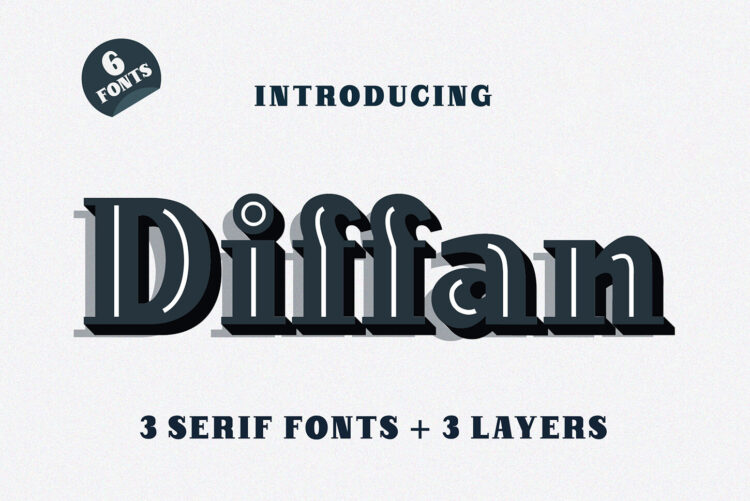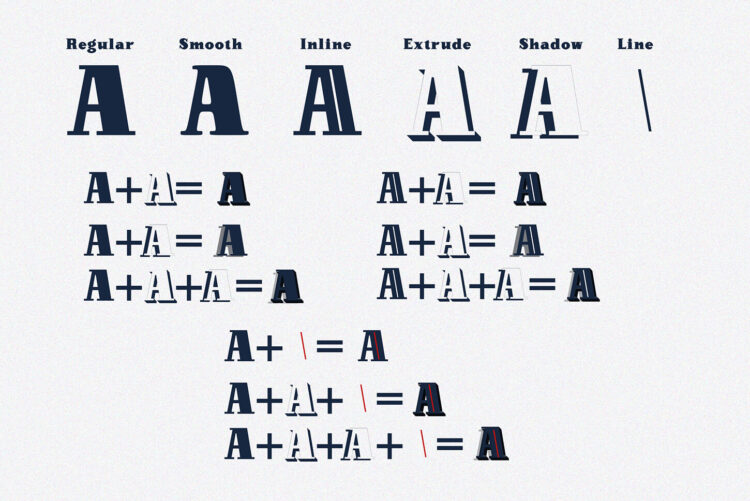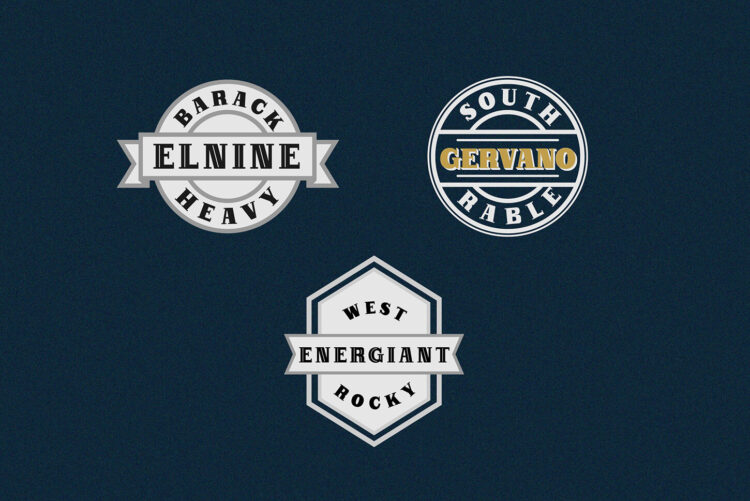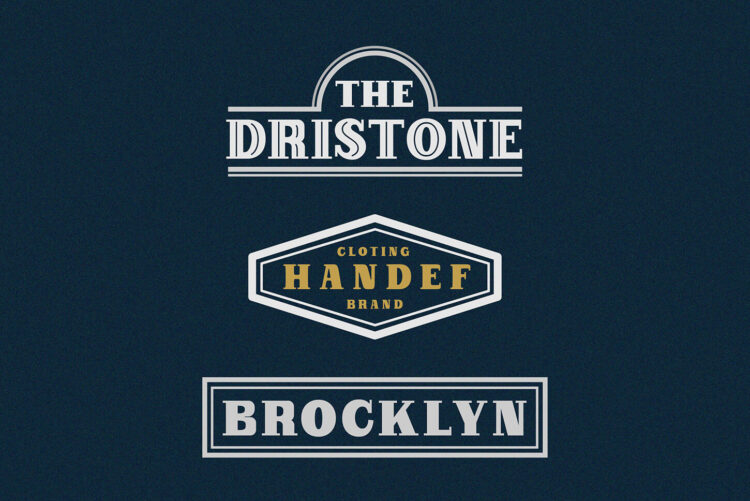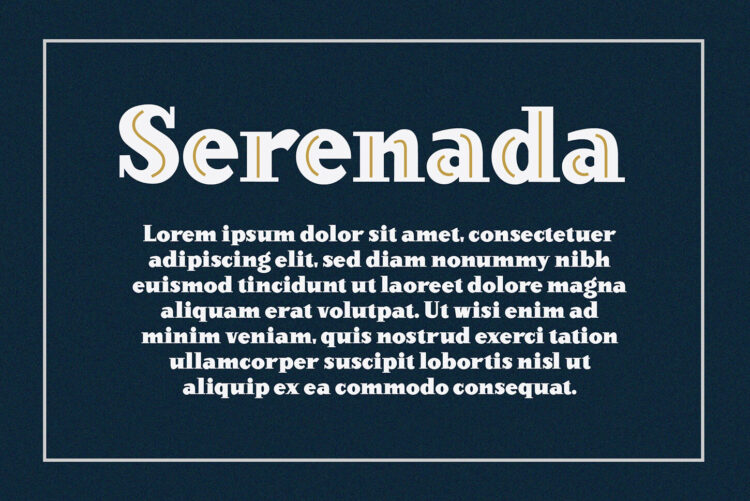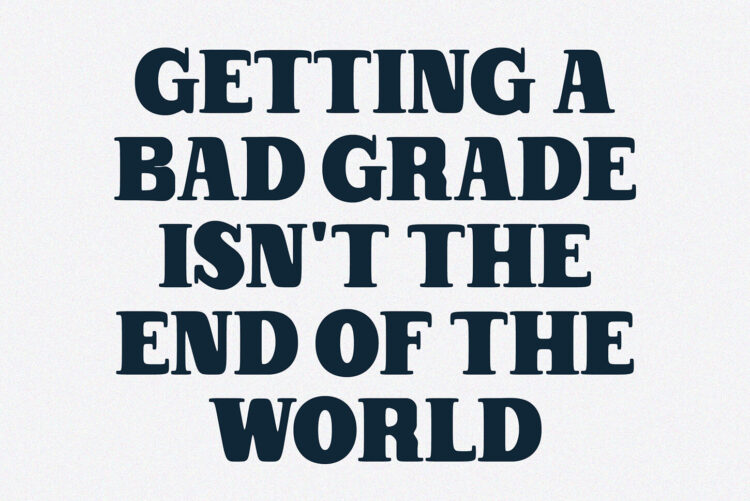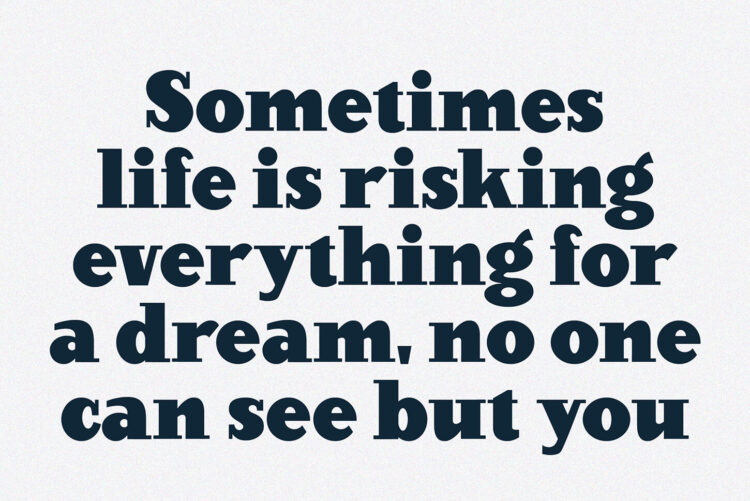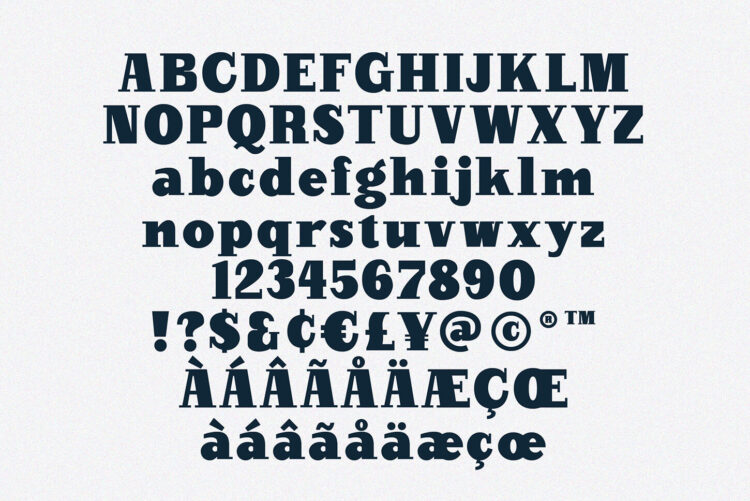
Diffan is a serif display typeface with an added layer that enhances the look. Diffan is the prefect font that creates logos, headlines, layouts and more.
- Uppercase, Lowercase, Numbers & Punctuation
- Multilingual